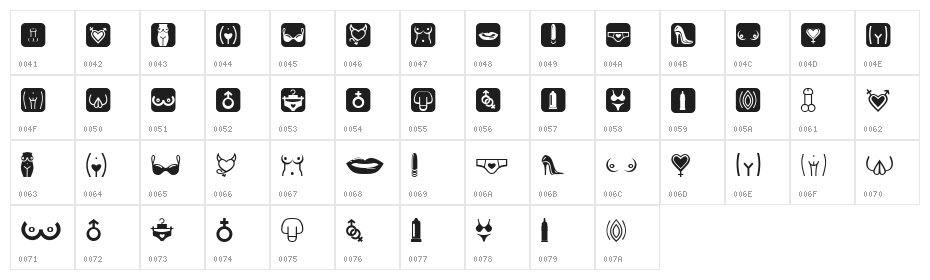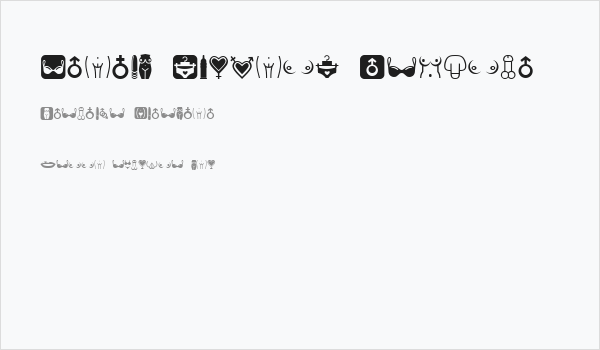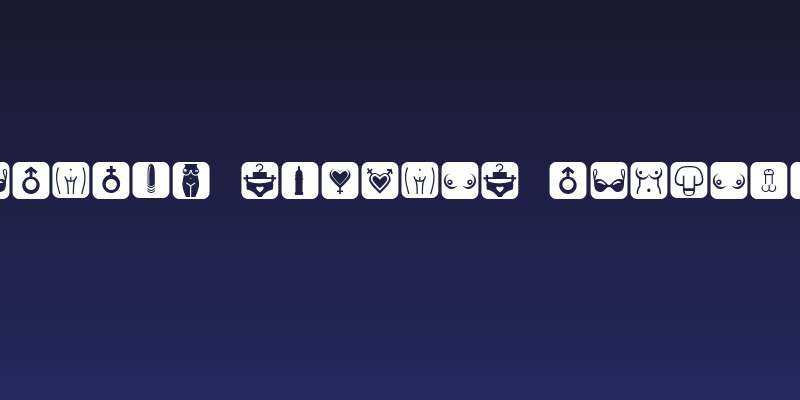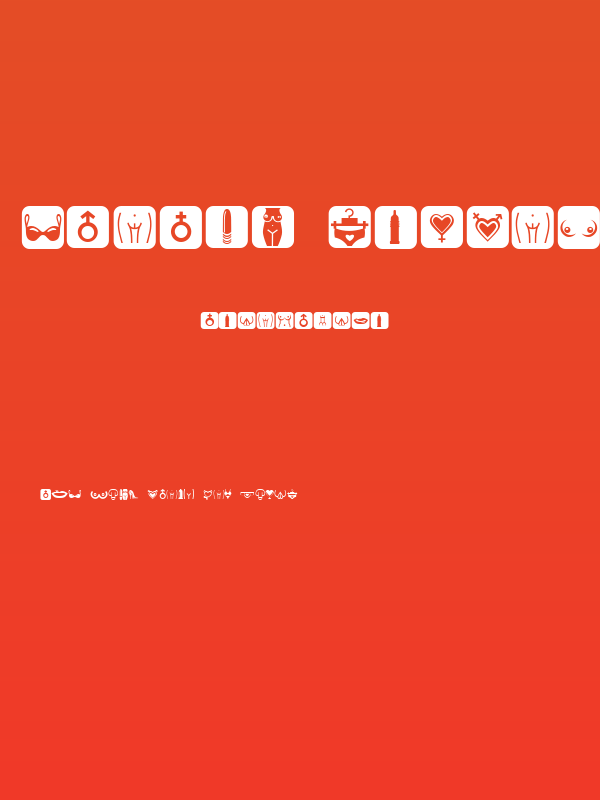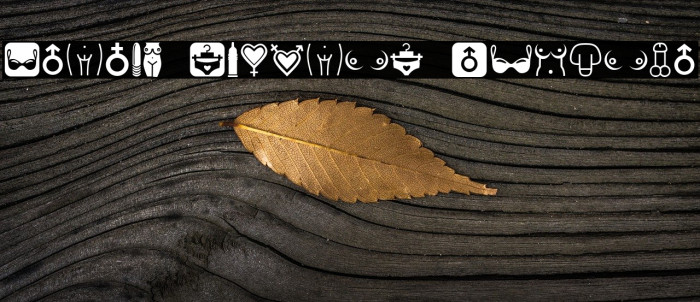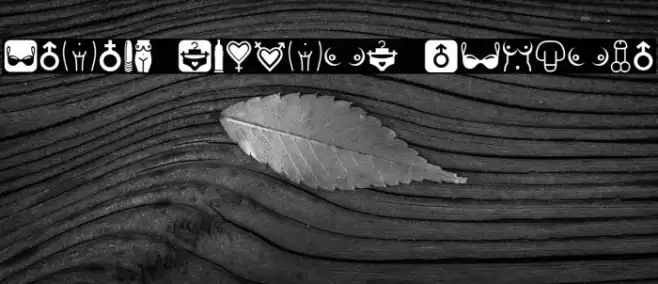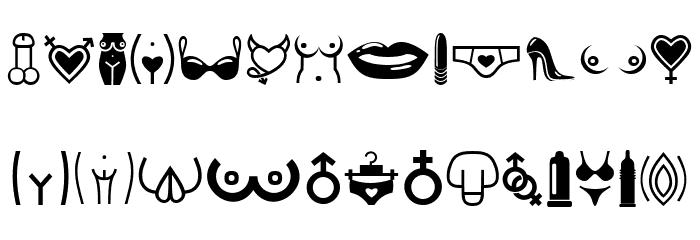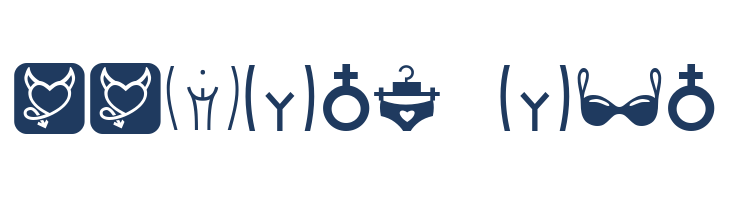
E****c Symbols Regular Font
This collection features a series of playful and suggestive symbols, each designed with bold lines and a modern aesthetic. The symbols include a variety of e****c and sensual imagery, such as lips, lingerie, and other intimate items. Each character is enclosed within a square, providing a uniform look across the set. The design is both cheeky and artistic, making it suitable for projects that aim to push boundaries and explore themes of sensuality and intimacy. The bold strokes and clear outlines ensure that each symbol is easily recognizable, even at smaller sizes.
| Use Case | Logos, Decorative elements, Themed merchandise |
| Proposed Projects | Ideal for adult-themed graphic design projects, novelty items, or playful branding that embraces sensuality. |